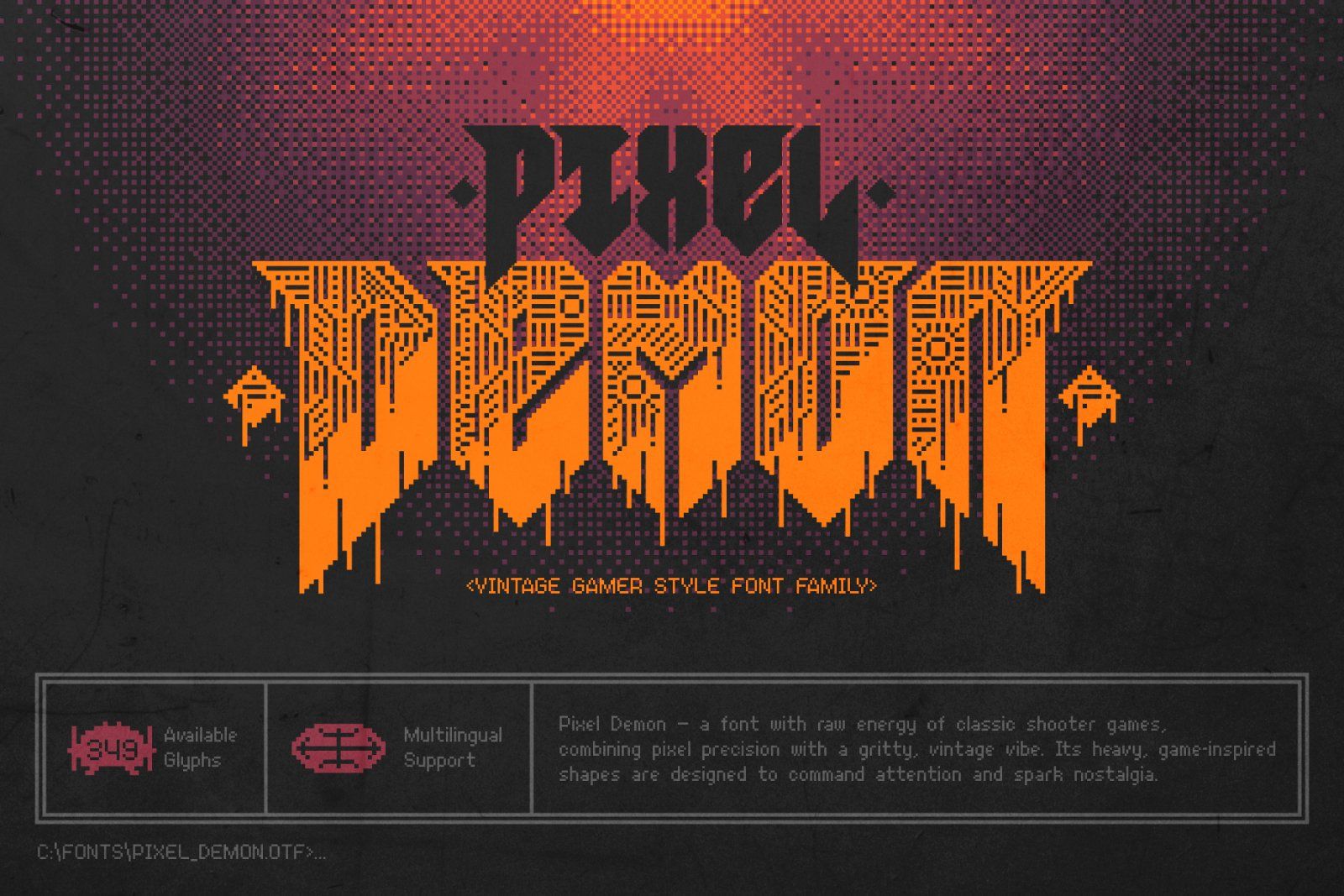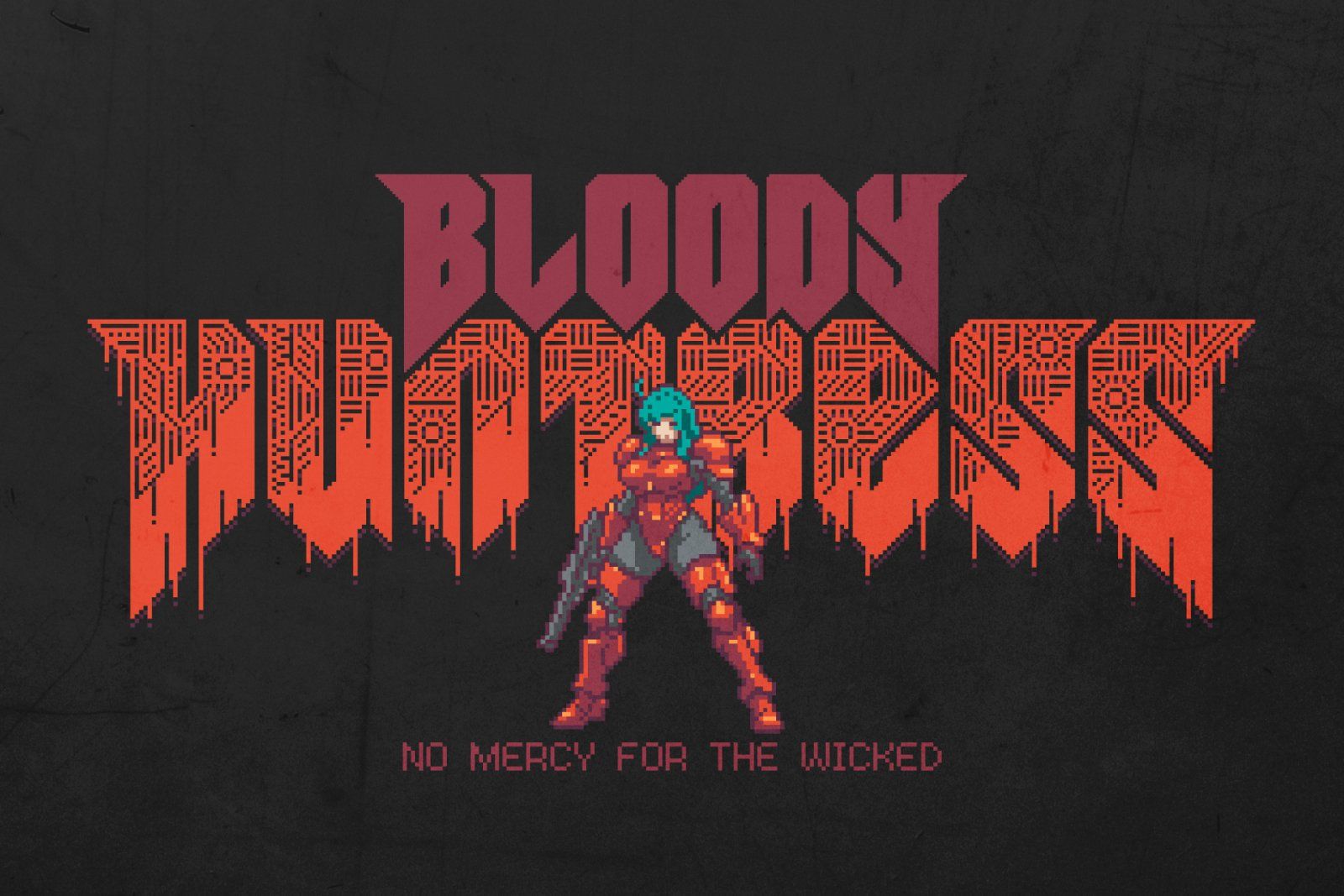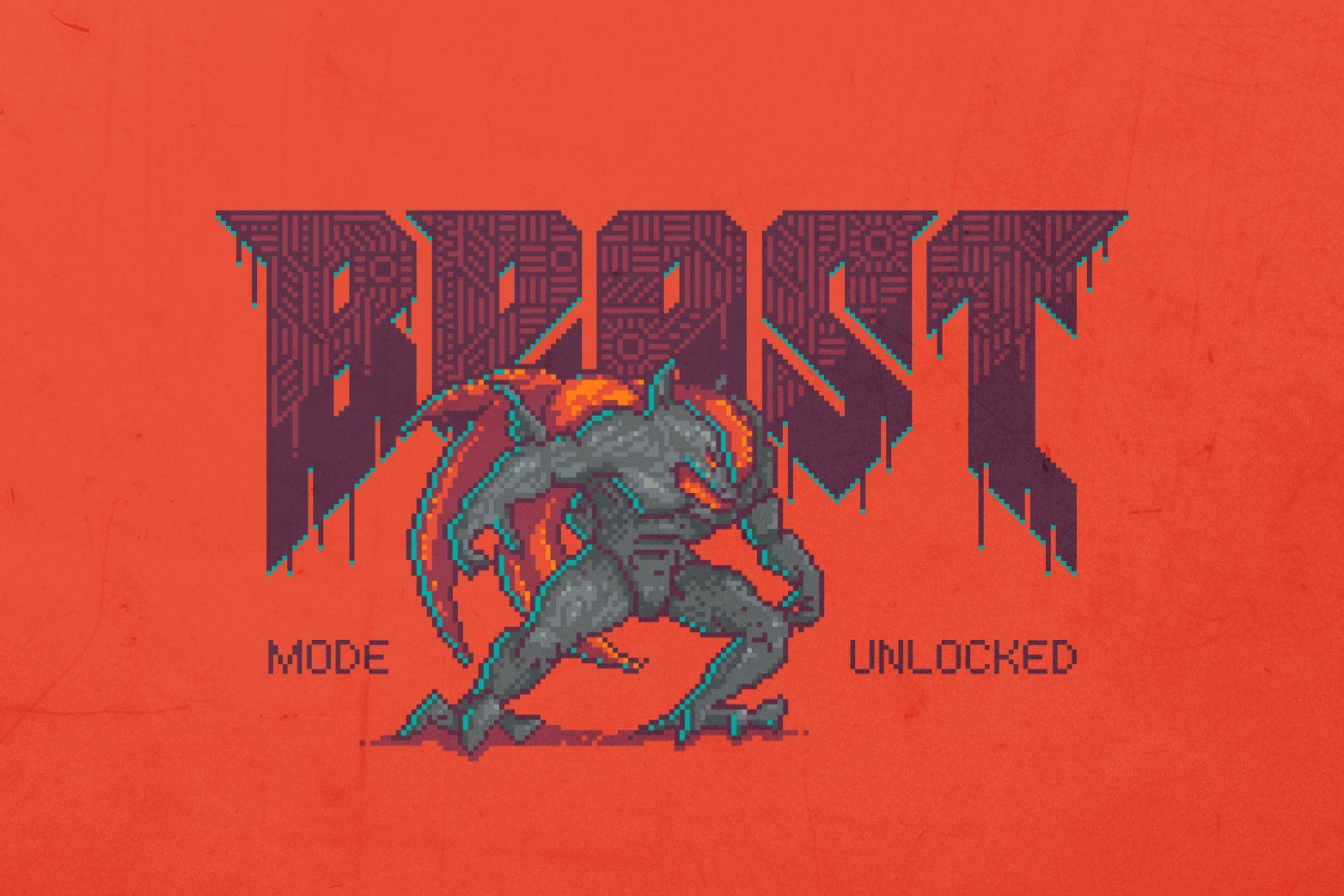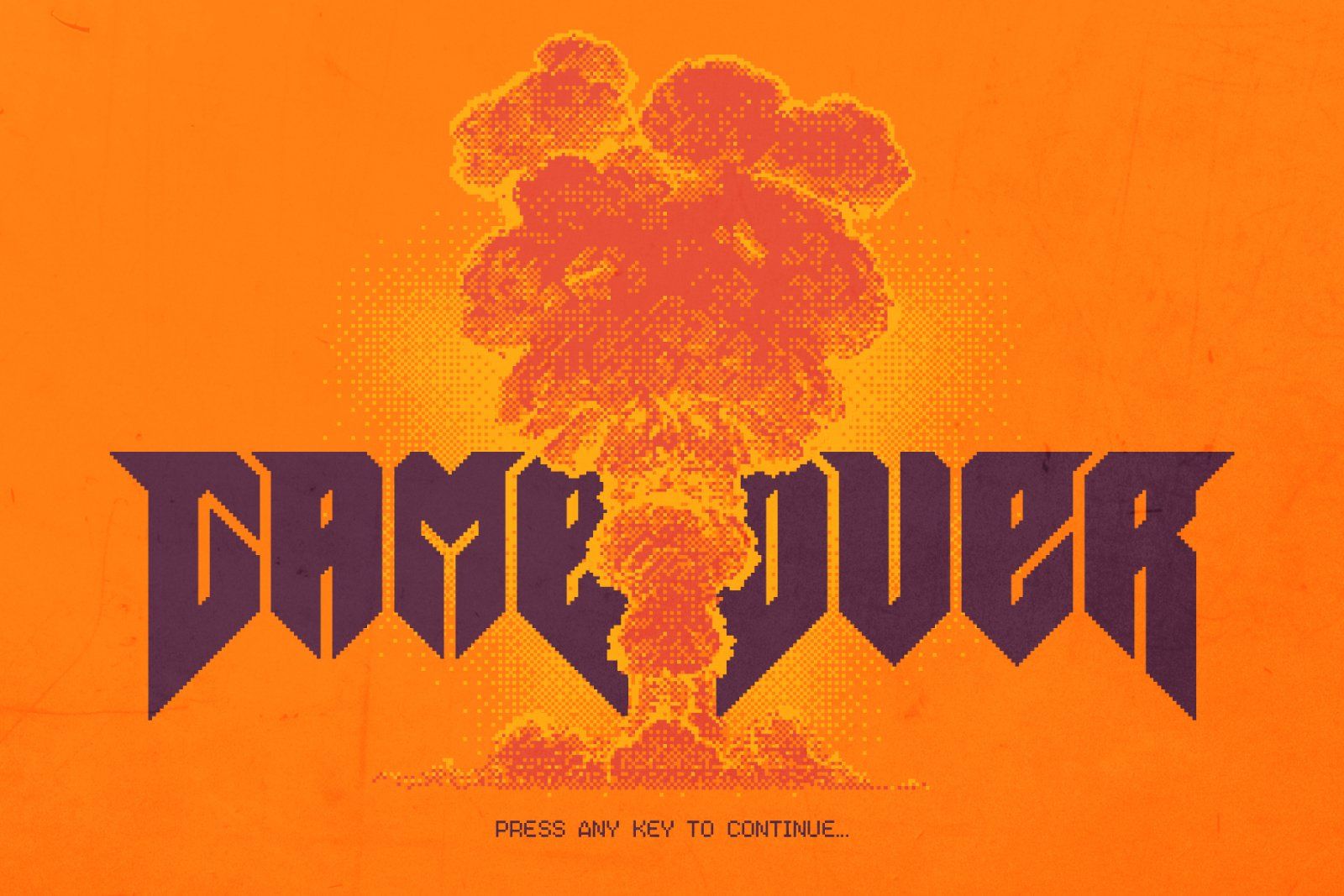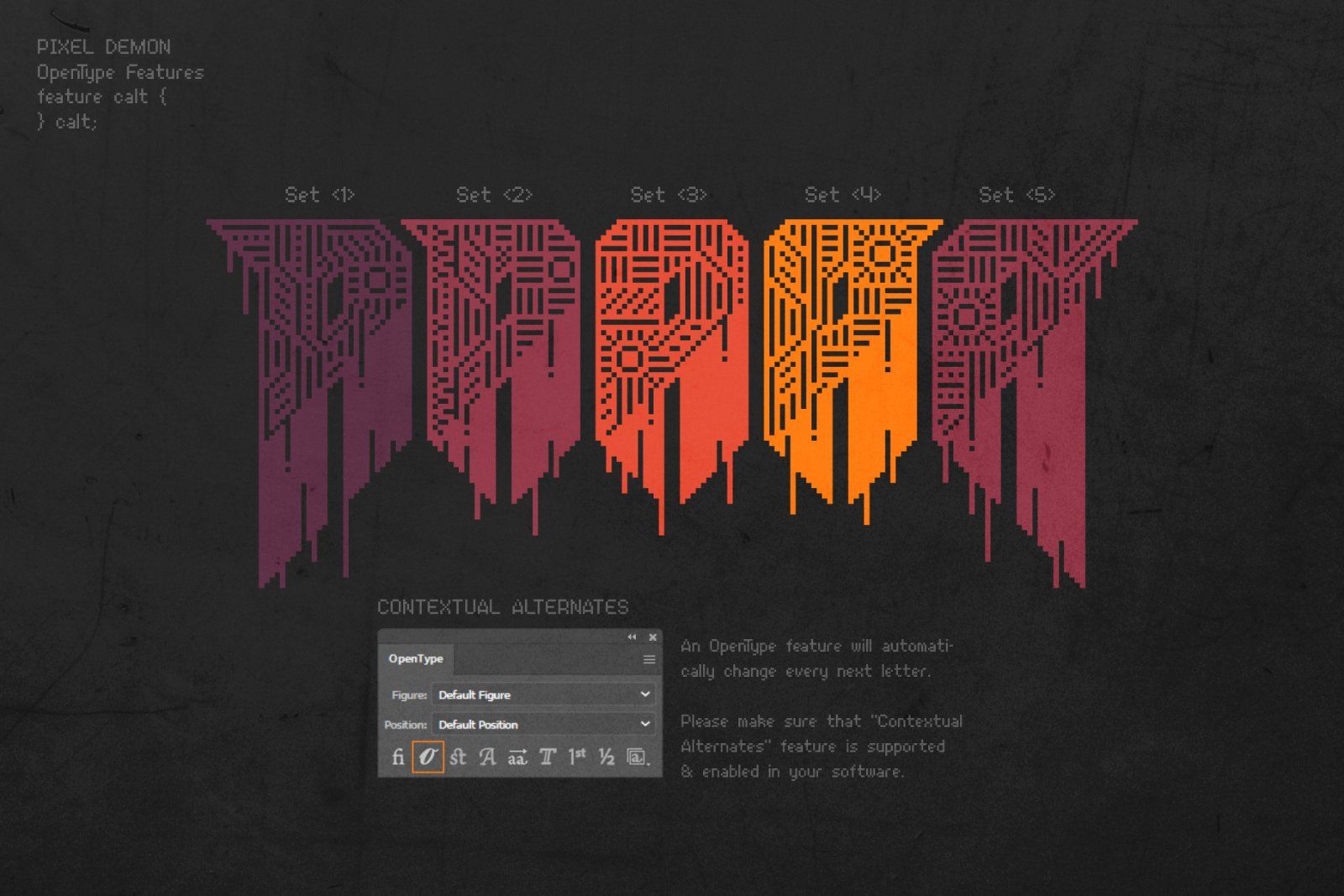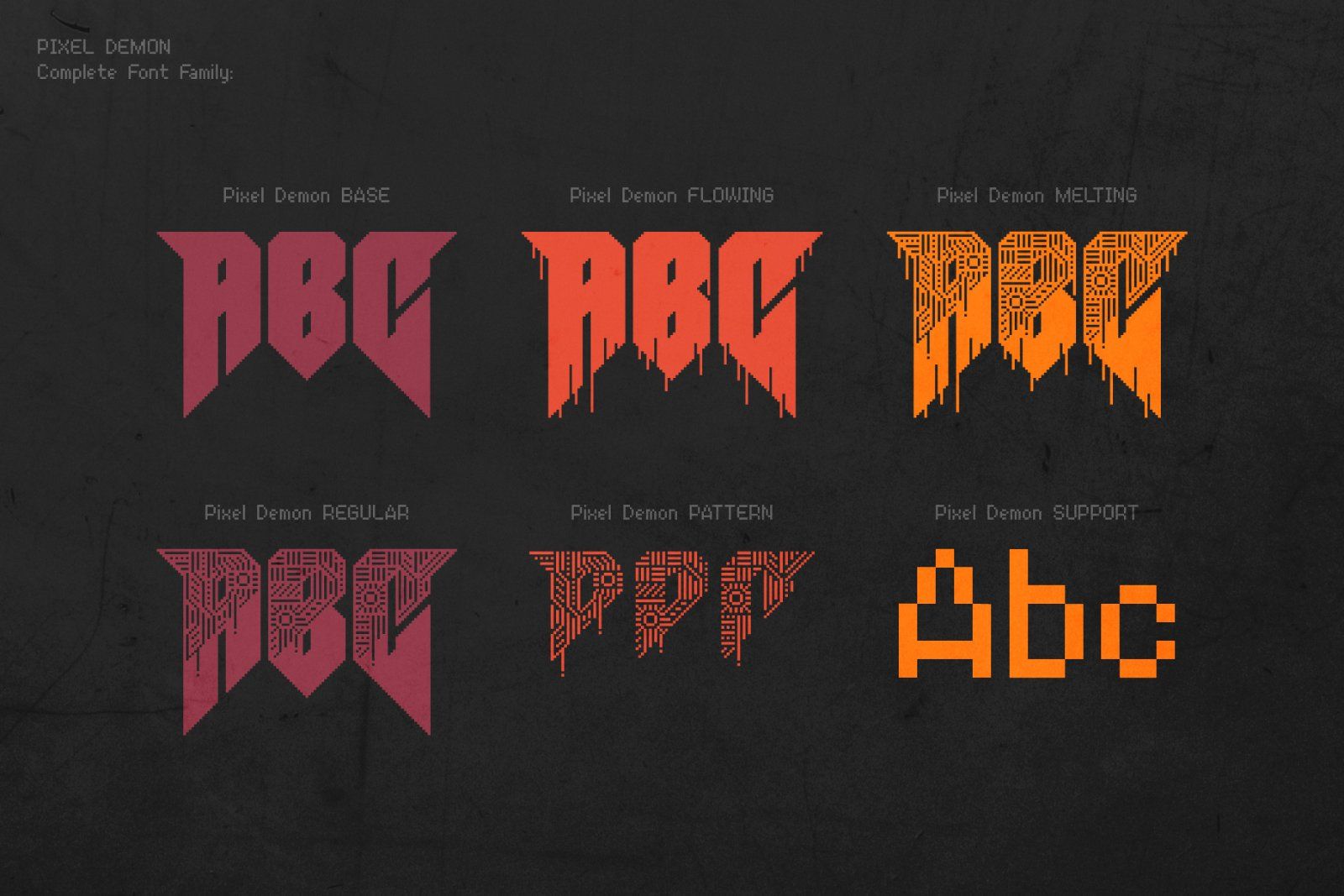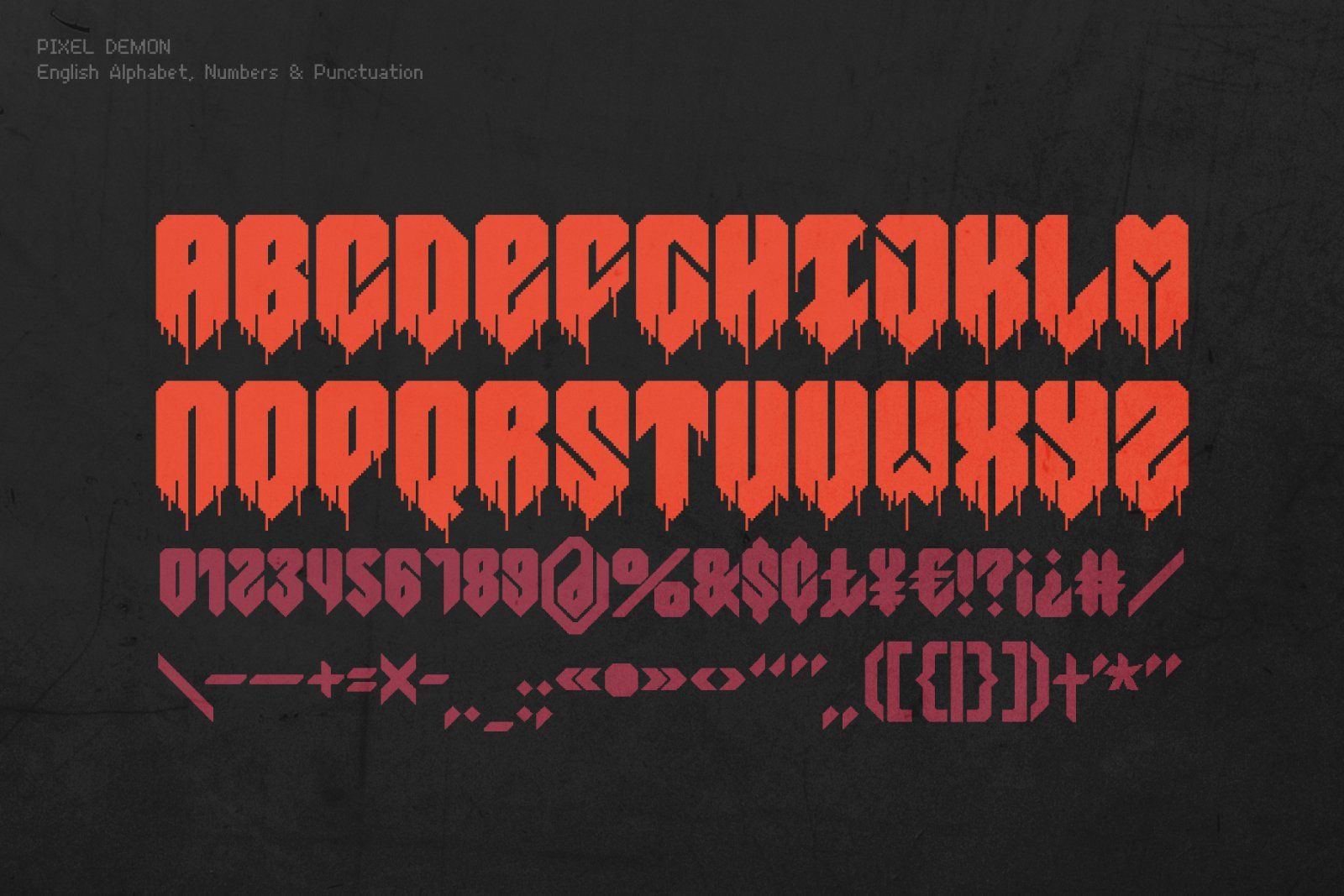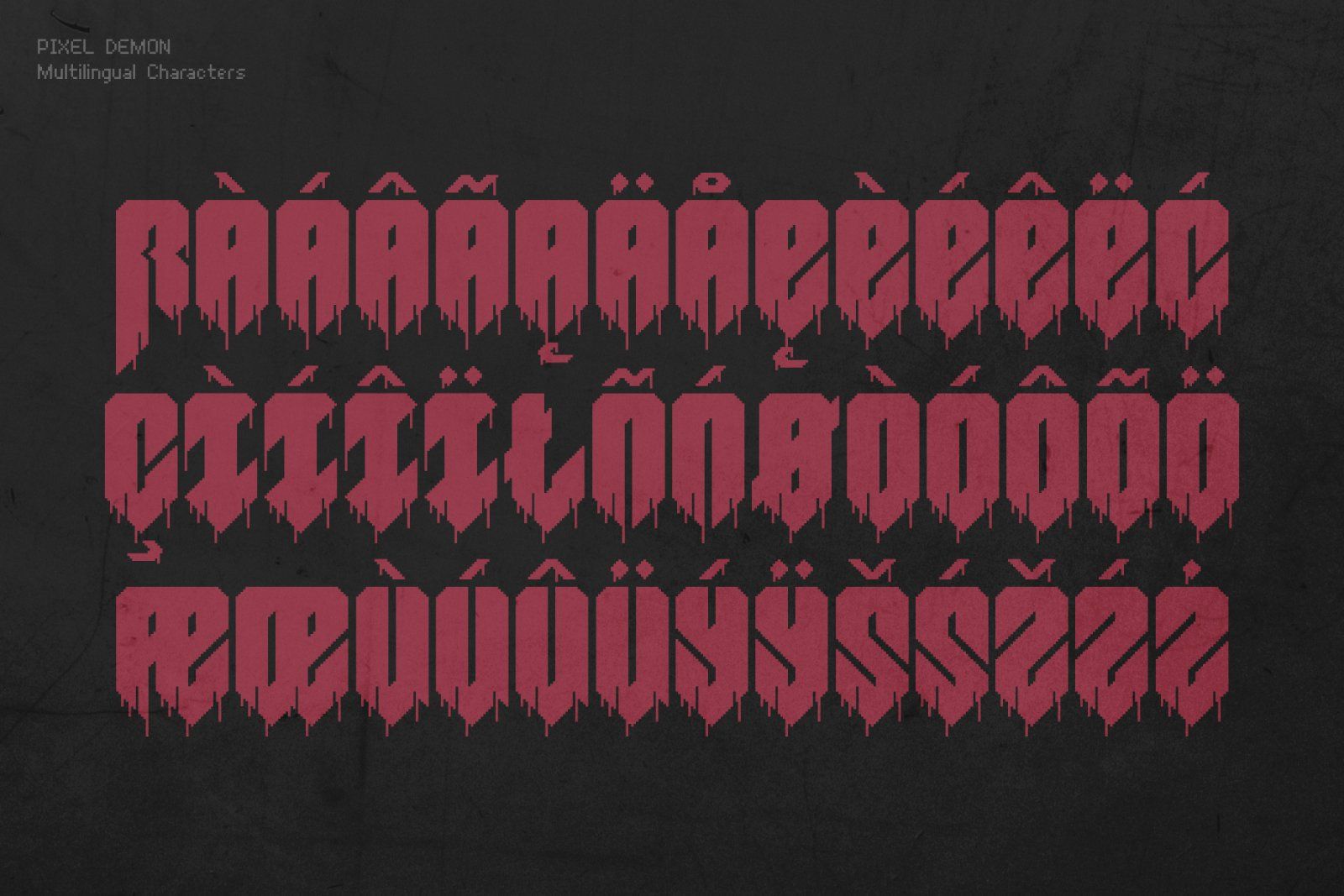
Hi! Pixel Demon — a font with raw energy of classic shooter games, combining pixel precision with a gritty, vintage vibe. Its heavy, game-inspired shapes are designed to command attention and spark nostalgia. A perfect weapon of choice for retro posters, gaming graphics, and bold digital art.
Pixel Demon Font has a unique OpenType Feature: each letter has 5 alternate characters that switch automatically to create an original effect.
Ensure that the "Contextual Alternates" OpenType feature is activated in your app to achieve the desired effect. The Pixel Demon font supports most European languages; however, please note that the special 5-letter feature is available only for the English alphabet (refer to the screenshots to view full set of available characters).
Pixel Demon full set includes 6 fonts: layered styles with and without patterns, versions with a melting effect, and a clean simple font for small supporting text.